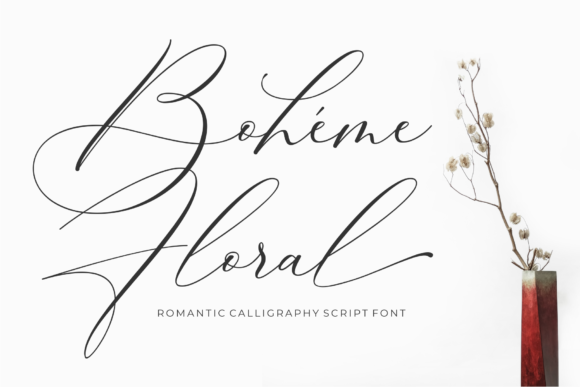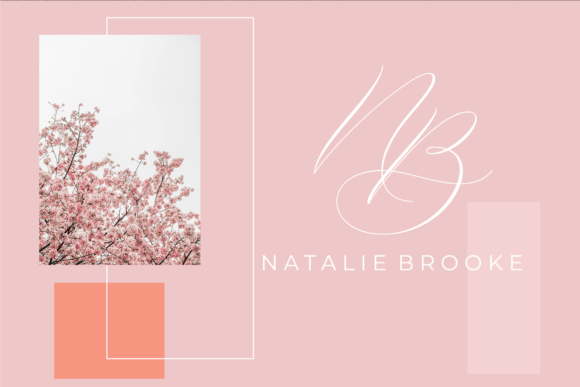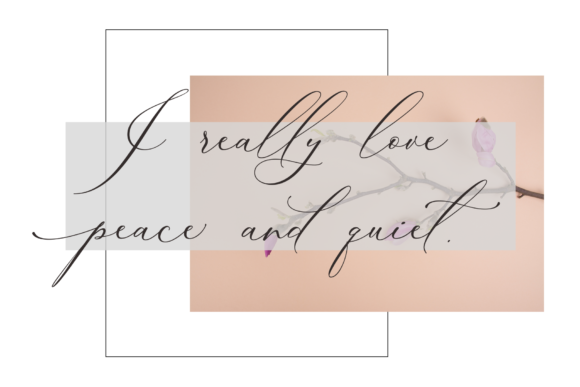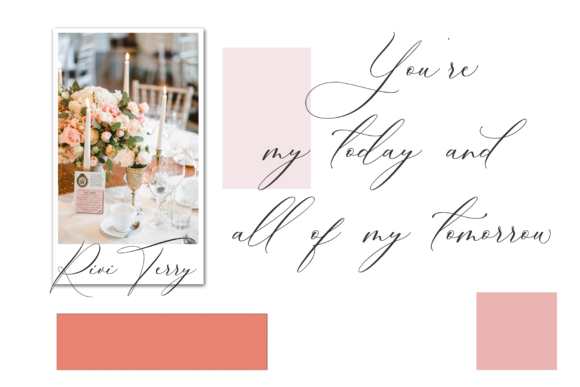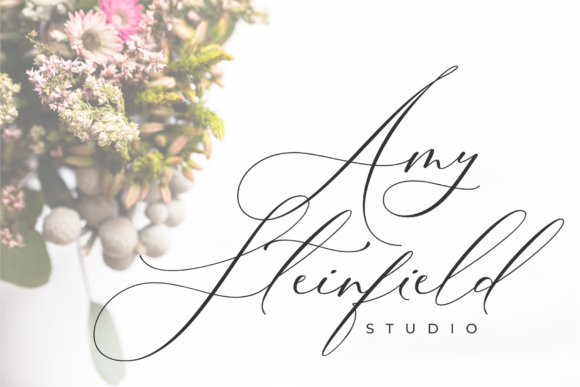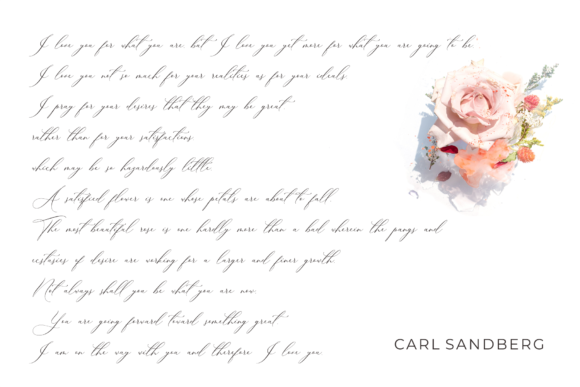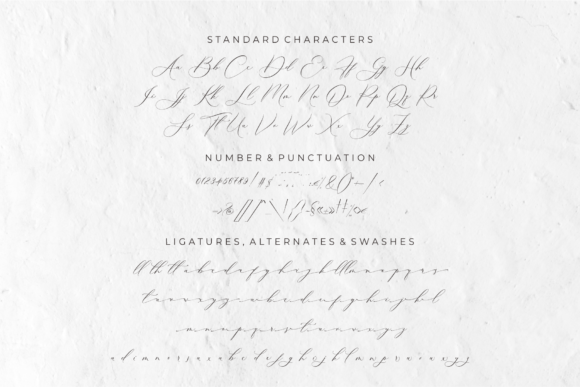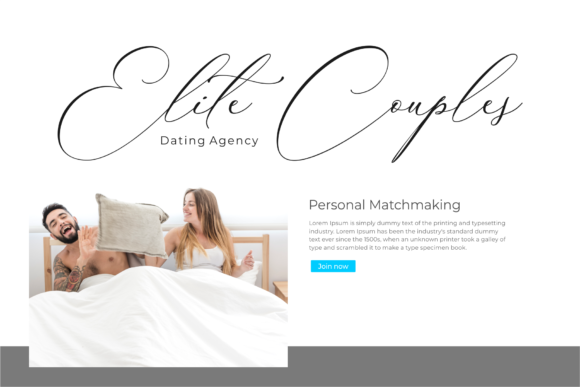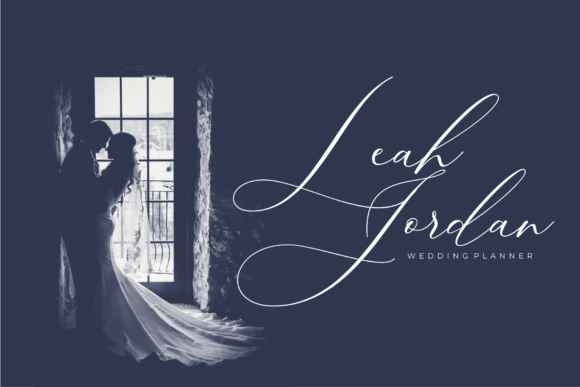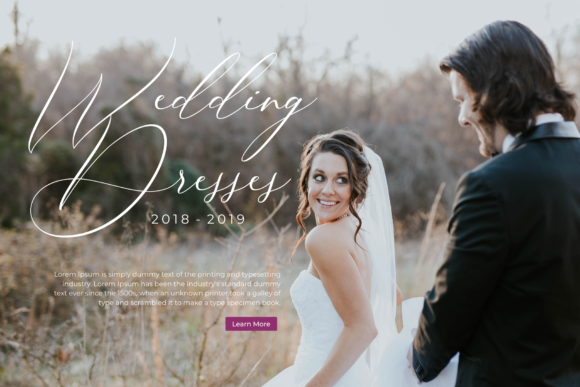
Boheme Floral Font
About Boheme Floral Font
The Bohéme Floral is a classic romantic calligraphy with lovely movements.
It’s great for logos, printed quotes, badges, insignia, packaging, headlines, posters, t-shirt/apparel, greeting cards, and wedding invitations!